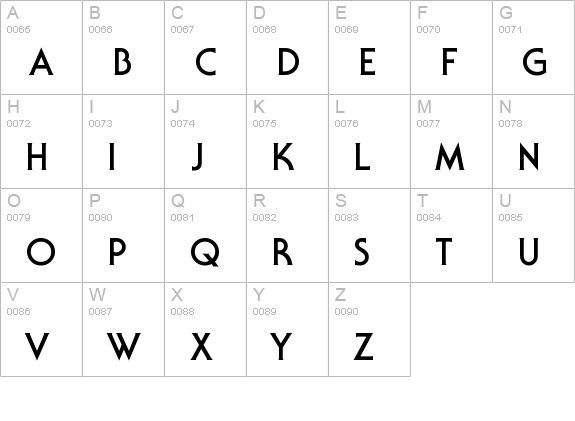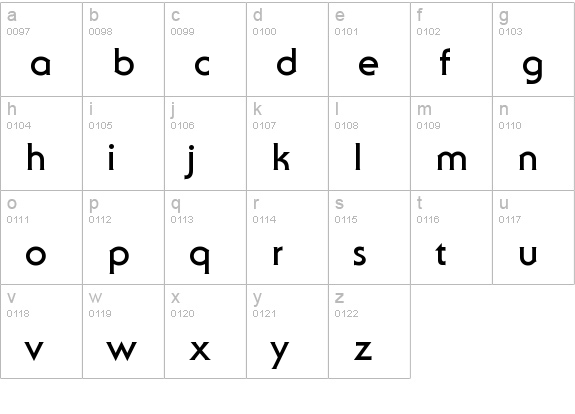
Sebastian-Bold Font Details
Sebastian-Bold is a strong, high-contrast variant in the Sebastian typeface family \xE2\x80\x94 well suited to headlines, attention-grabbing titles, and strong calls-to-action.
Sebastian-Bold is a striking and versatile font that exudes confidence and modernity. With its bold and eye-catching design, this typeface is perfect for making a statement in any project. Whether you're designing a logo, creating a poster, or crafting a website, Sebastian-Bold will add a touch of sophistication and style. What's even better is that Sebastian-Bold is available for free download at FontsMarket.com. This means you can easily access this high-quality font without any cost, making it a valuable addition to your font collection. Don't miss out on the opportunity to enhance your design projects with the bold and impactful Sebastian-Bold font - download it for free today at FontsMarket.com!